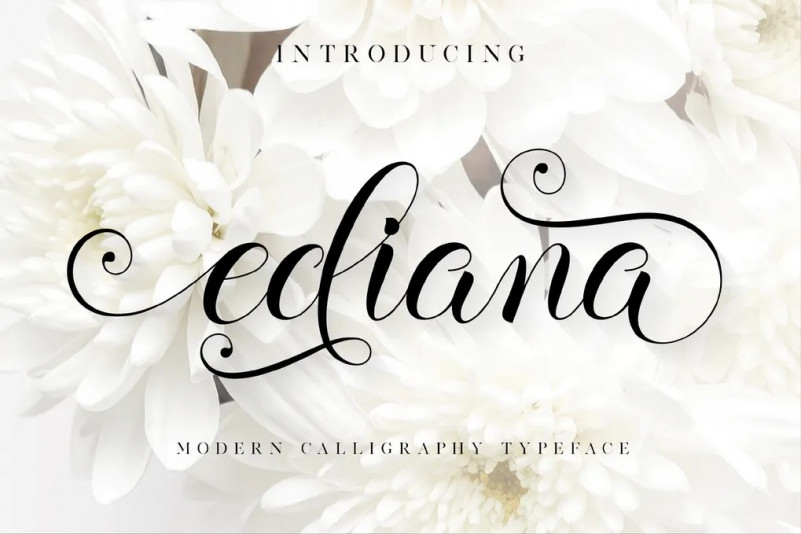
Ediana Font
Introducing Ediana script, a stylish Font Style. This beautiful script font offers your personal touch to your latest art project with an elegant, classy and modern look.